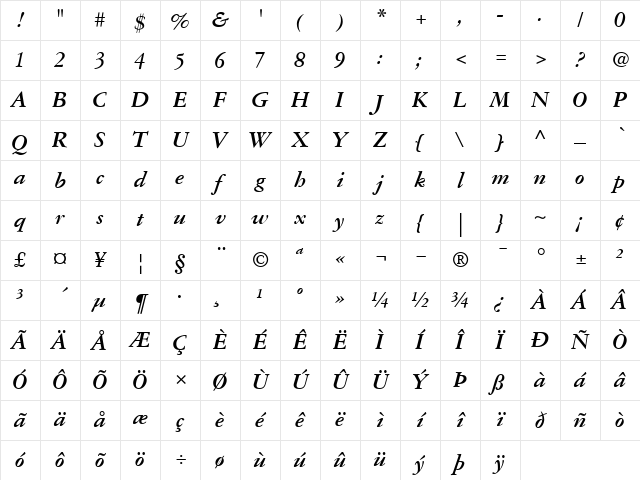
GaramondThree BoldItalic
GaramondThree Family
GaramondThree BoldItalic
Design Context for GaramondThree
GaramondThree is a composed and adaptable typeface that performs quietly and consistently across a wide range of design contexts. The slanted form adds forward momentum and visual energy. Its bold stroke weight gives it real presence on the page.
Pro Tip: Use GaramondThree for emphasis, pull quotes, and subheadings where its slanted energy can add rhythm to the layout.